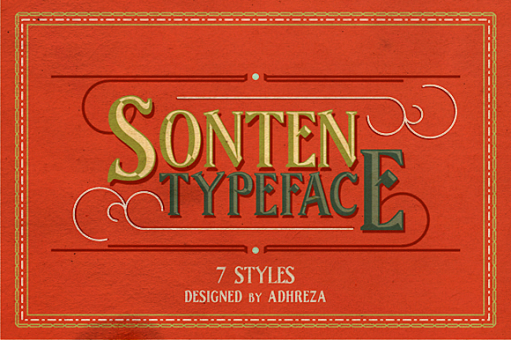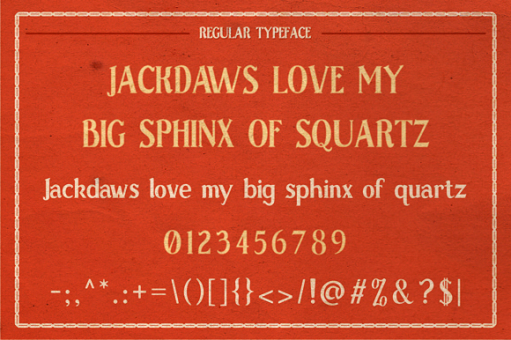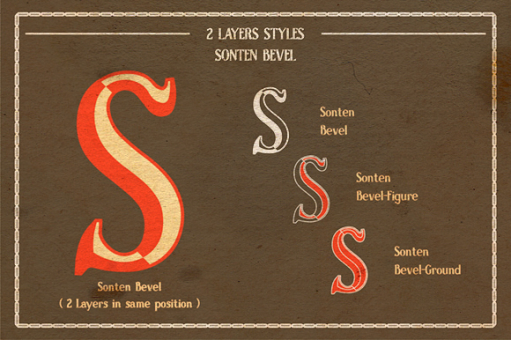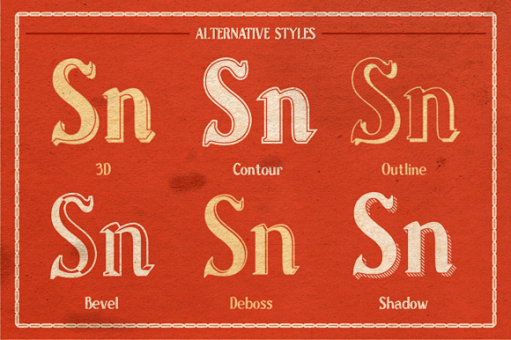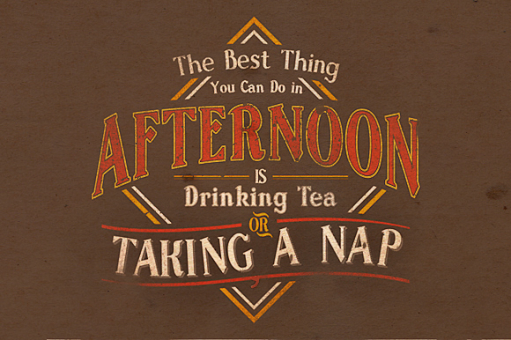
Sonten
Sonten Typeface is a modern serif-semibold for title and bodytext in a medium look.The name 'Sonten' originally from Sundanese word means 'Afternoon' that inspired from the process when I created the font every afternoon after my "business" done everyday.
The design prefers to use in insignia style, so I presented the different styles including 3D, Bevel, Contour, Deboss, Outline, and Shadow. Most of them can texted in a regular way (1 color) or being combined by 2 font that have the same position like a multi-layers.
Sonten (Regular) with Italic, Bold, Bold Italic
Plus the Sonten-Highlight Layer
Sonten 3D with Italic
Plus the alternative between Sonten 3D-Figure & Sonten 3D-Ground
Sonten Bevel with Italic
Plus the alternative between Sonten Bevel-Figure & Sonten Bevel-Ground
Sonten Contour with Italic
Plus the alternative between Sonten Contour-Inner & Sonten Contour-Outer
Sonten Deboss with Italic
Sonten Outline with Italic
Plus the alternative between Sonten Outline-Figure & Sonten Outline-Ground
Sonten Shadow with Italic
Plus the alternative between Sonten Shadow-Figure & Sonten Shadow-Ground